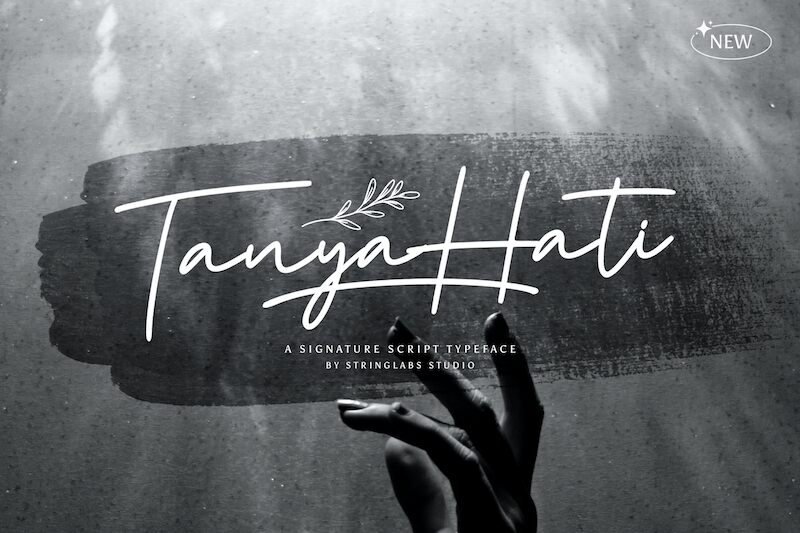
Tanya Hati
Tanya Hati is a beautifully crafted handwritten font by StringLabs. Its light weight adds a touch of elegance and sophistication to any project. The unique curves and flourishes of this font make it perfect for wedding invitations, greeting cards, and branding materials. Its versatility also makes it suitable for use in blog headers, social media graphics, and even product packaging. With Tanya Hati, you can add a personal touch to your designs that will leave a lasting impression on your audience. Download this stunning typeface today and see the magic it brings to your creations!